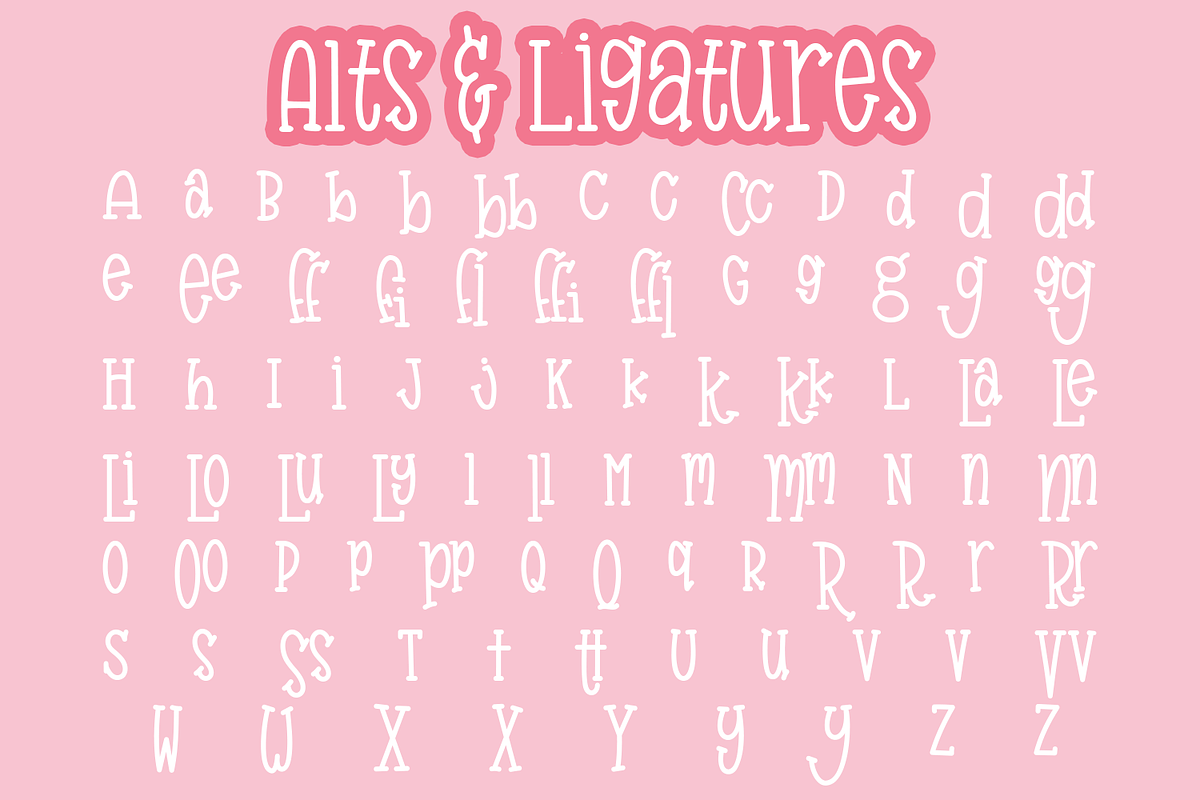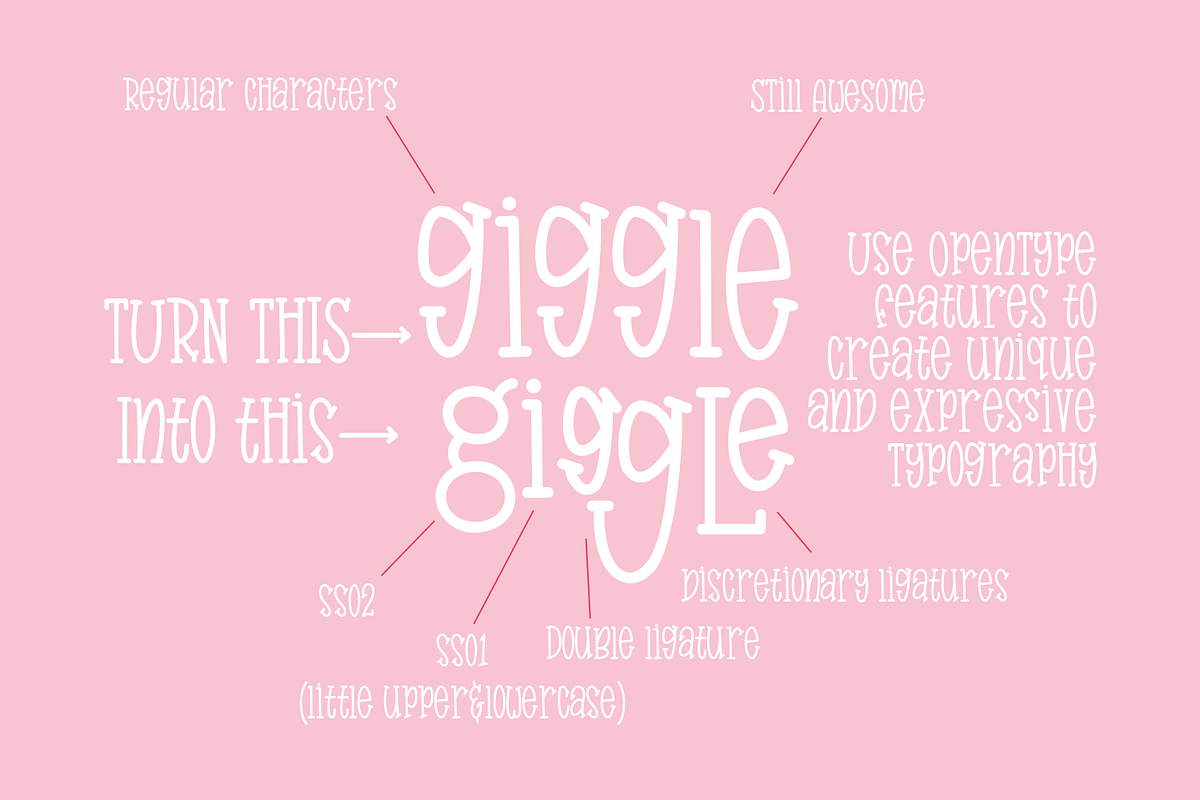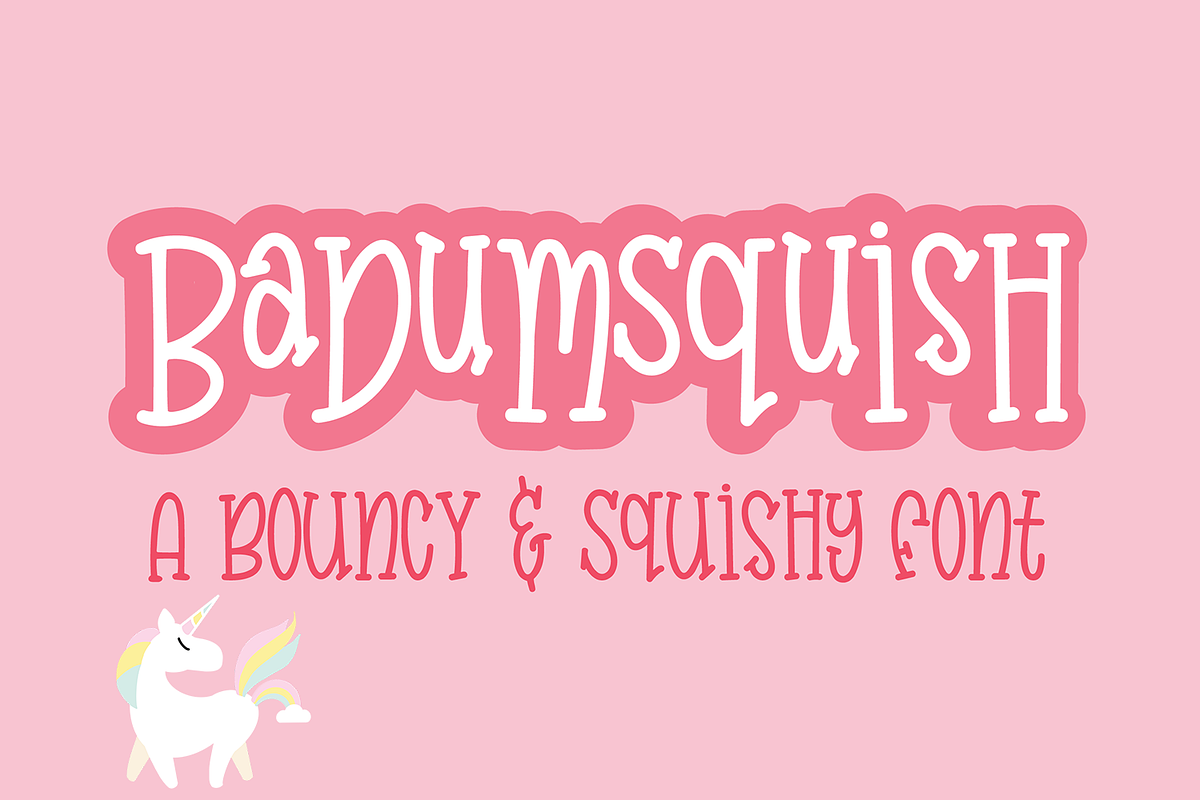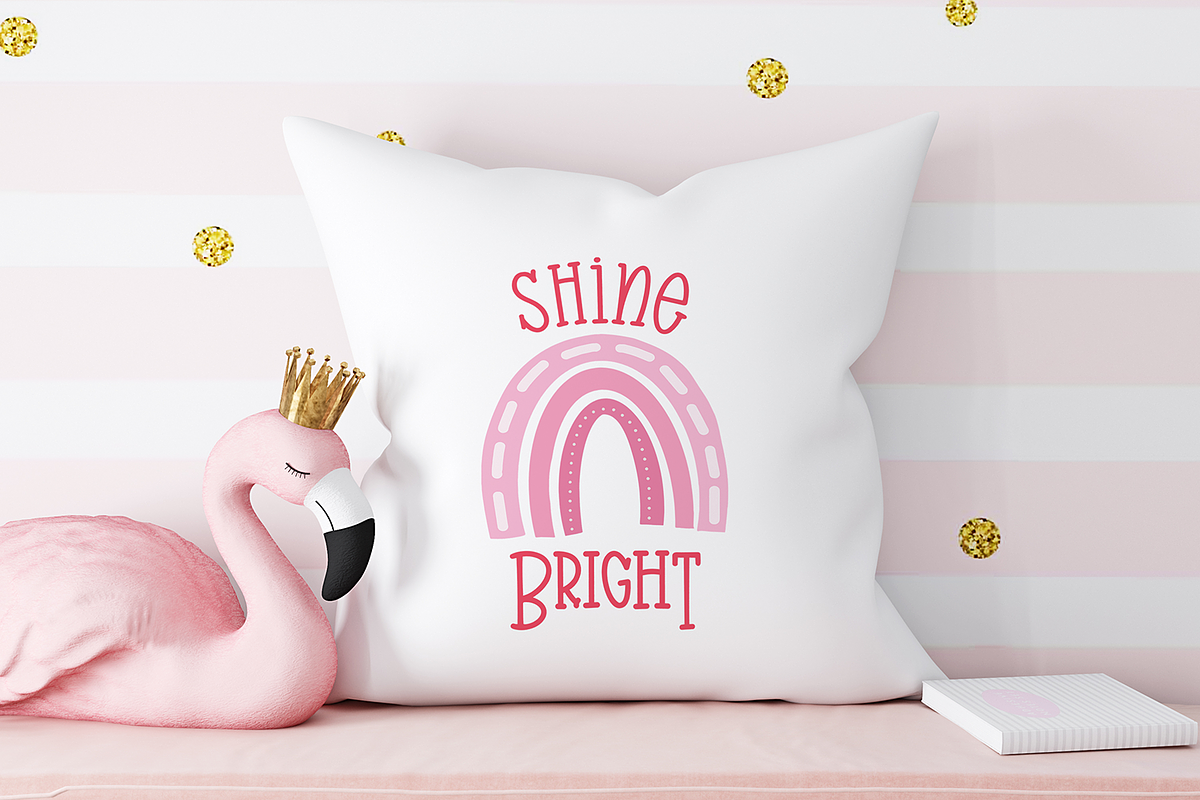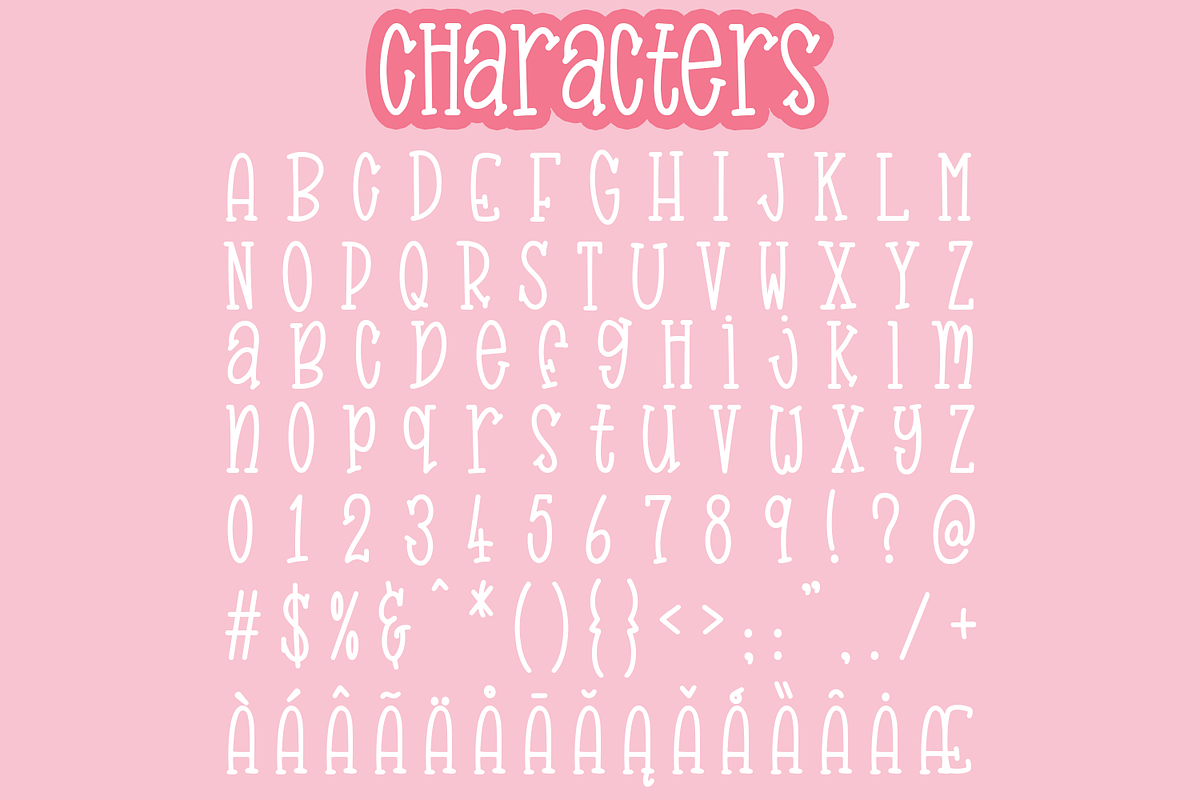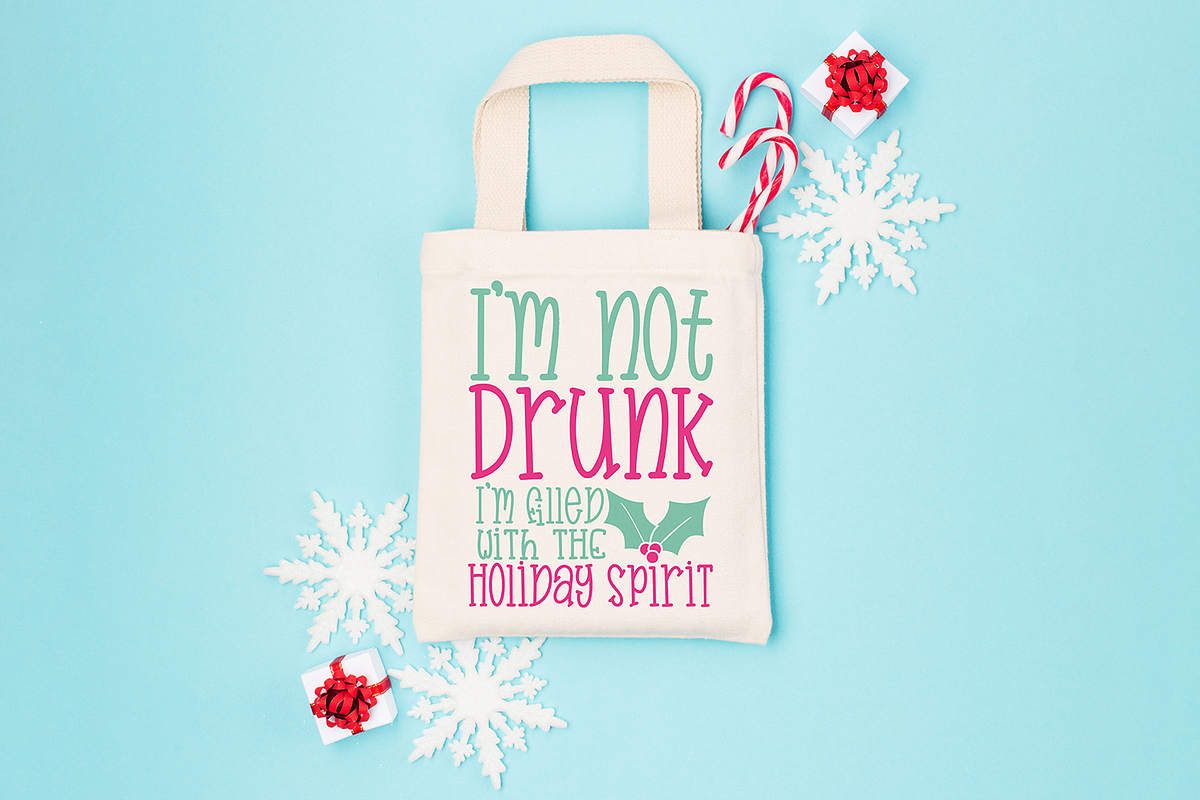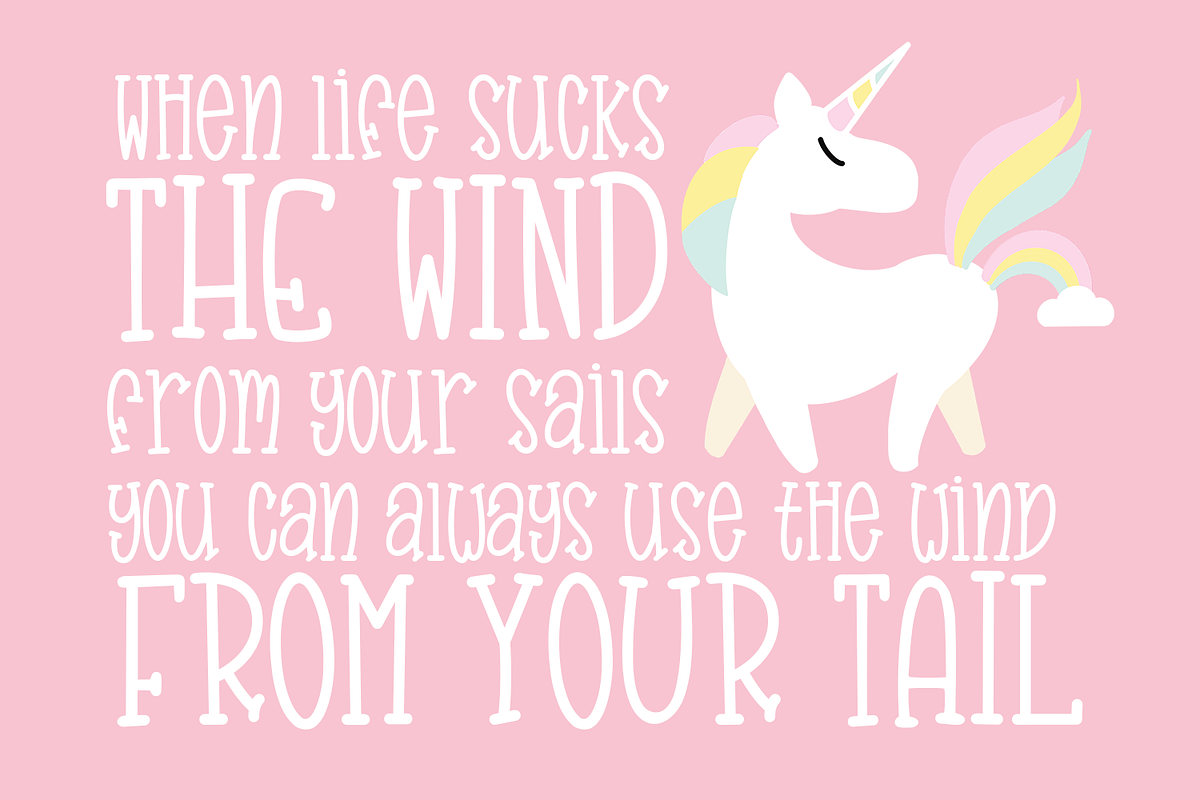
Badumsquish - a bouncy squishy font
Introducing Badumsquish - a bouncy and squishy font!
This cute, quirky font features a delightful set of little alternate characters with a baseline set above the regular characters - the effect is bouncy and squishy type! This is perfect for catchwords, or alternating between regular and littles!
This font is perfect for your next project! Use it in your branding, designs, or packaging!
This font includes a total of 596 glyphs. Included features:
Standard Ligatures Discretionary ligatures Stylistic Alternates Stylistic sets 350+ accented Characters (Latin -1 Supplement, Latin Extended-A, Latin Extended-B, Latin Extended Additional+ Combining diacritical marks,)